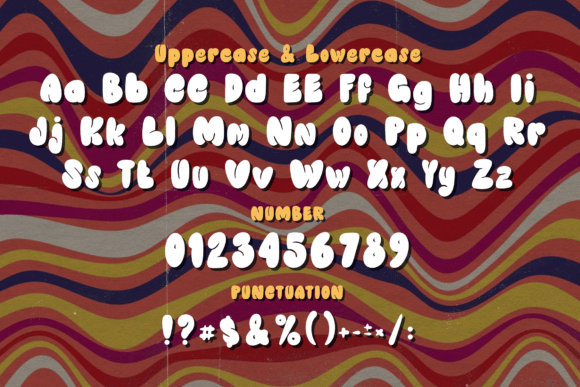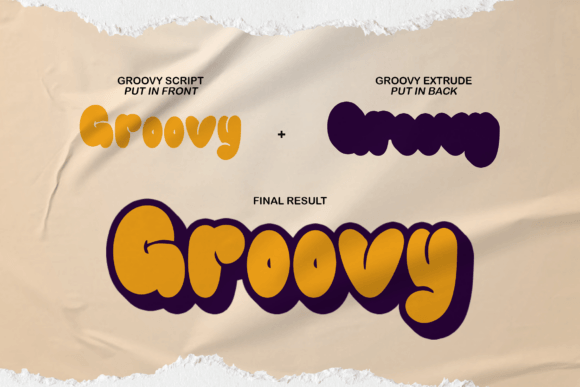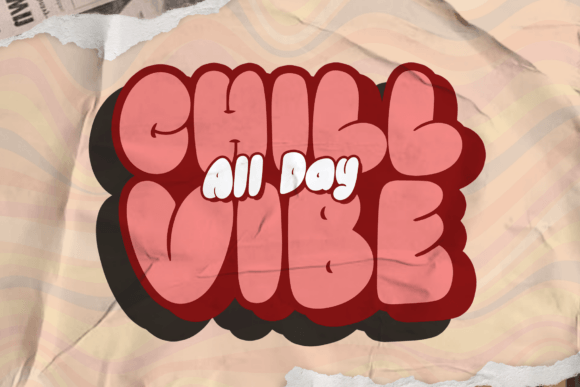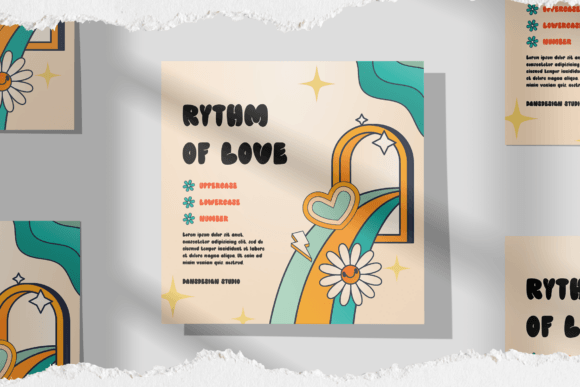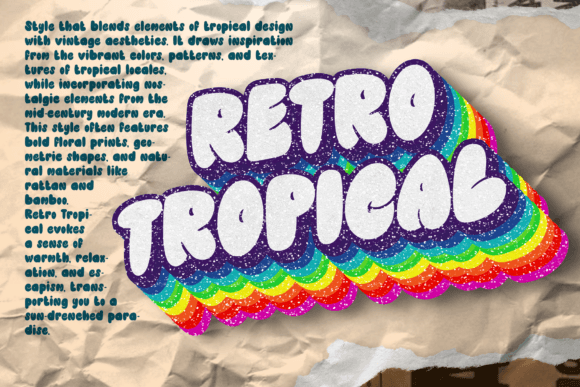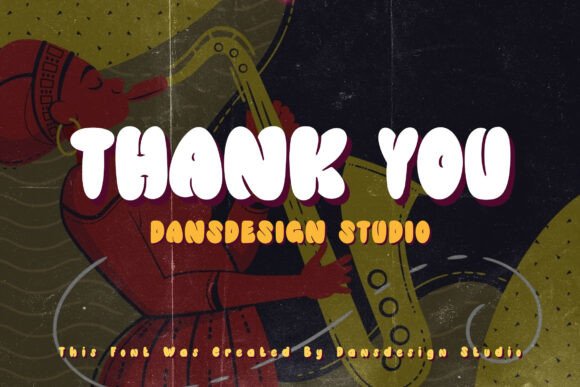
Introduction to Quick Chill Font
Quick Chill is a fun, energetic design that mixes graffiti art with a Y2K vibe.
It’s colorful, bold, and full of playful energy, blending urban street style with a futuristic twist Think of it as a cool, artistic expression of the early 2000s, with a groovy, laid-back feel.
Key Features of Quick Chill Font